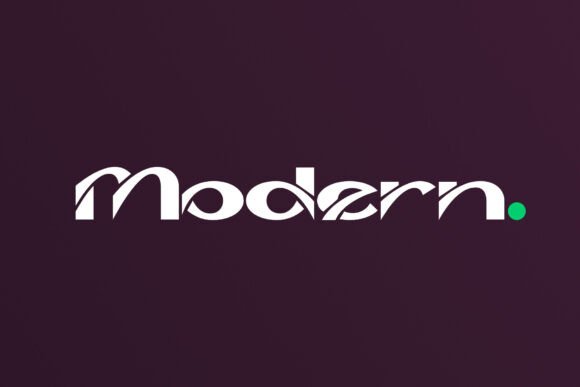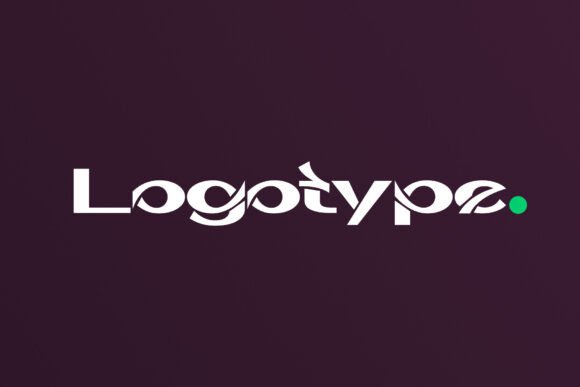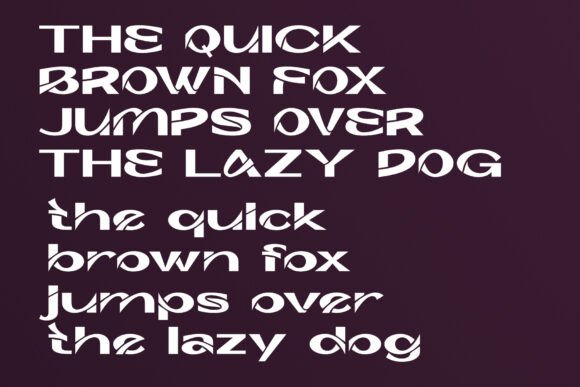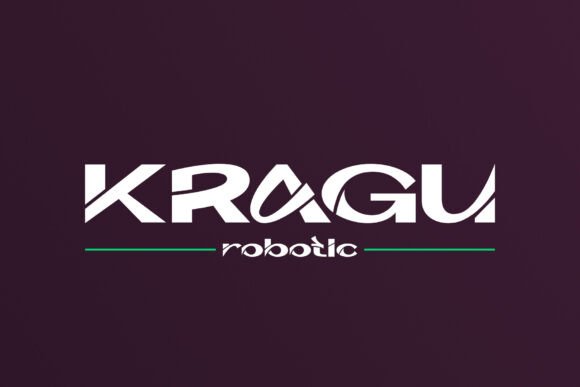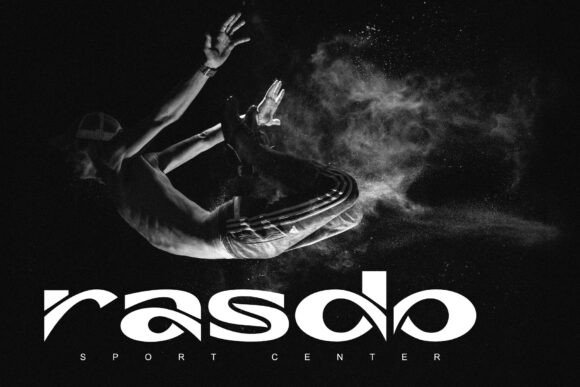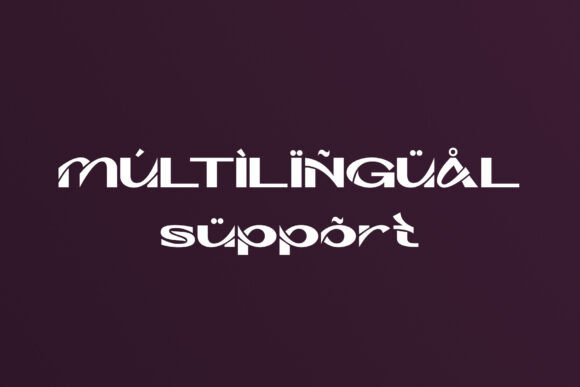
Introducing Badem Modern Font: Elevate Your Brand Identity
In the world of typography, a well-crafted font can make all the difference in establishing a strong brand identity. Badem Modern Font Display is a cutting-edge typeface designed to help you stand out from the crowd. With its meticulous attention to detail and mathematical precision, Badem is the perfect choice for designers and crafters looking to elevate their brand’s visual presence.
The Art of Precision: Badem’s Unique Features
Every detail of Badem has been carefully crafted to captivate your audience. The font’s sleek lines, precise curves, and balanced proportions create a visually stunning effect that is sure to leave a lasting impression. Whether you’re designing a logo, title, or headline, Badem’s precision-crafted typography ensures that your message is conveyed with clarity and sophistication.
Versatility at Its Finest: Badem’s Range of Applications
Badem Modern Font Display is an incredibly versatile typeface that excels in a wide range of creative applications. Its clean and modern design makes it ideal for corporate use, while its bold and eye-catching style is perfect for:
- Branding and logos: Establish a strong visual identity for your brand with Badem’s distinctive typography.
- Titles and headlines: Grab attention with Badem’s bold and confident lettering.
- Posters and flyers: Create striking visual displays with Badem’s precise and elegant typography.
- Digital ads: Stand out in a crowded online landscape with Badem’s modern and captivating font style.
Why Choose Badem Modern Font?
With so many fonts to choose from, why settle for Badem Modern Font Display? Here are just a few reasons why Badem stands out from the rest:
- Mathematical precision: Every detail of Badem has been meticulously crafted to ensure a flawless visual experience.
- Versatility: Badem excels in a wide range of creative applications, from corporate use to digital design.
- Modern style: Badem’s sleek and contemporary design ensures that your brand stays ahead of the curve.
- Ease of use: Badem is easy to read and understand, making it perfect for body text and headlines.
Tips for Using Badem Modern Font Effectively
To get the most out of Badem Modern Font Display, here are a few tips to keep in mind:
- Pair Badem with complementary fonts: Combine Badem with other fonts to create a visually appealing contrast.
- Experiment with font sizes and weights: Badem’s versatility allows you to experiment with different font sizes and weights to create a unique visual effect.
- Use Badem consistently: Establish a strong brand identity by using Badem consistently across all your marketing materials.
Badem Modern Font Display is a game-changing typeface that can elevate your brand identity and take your design to the next level. With its precision-crafted typography, versatility, and modern style, Badem is the perfect choice for designers and crafters looking to make a lasting impression. Try Badem today and discover the power of exceptional typography!